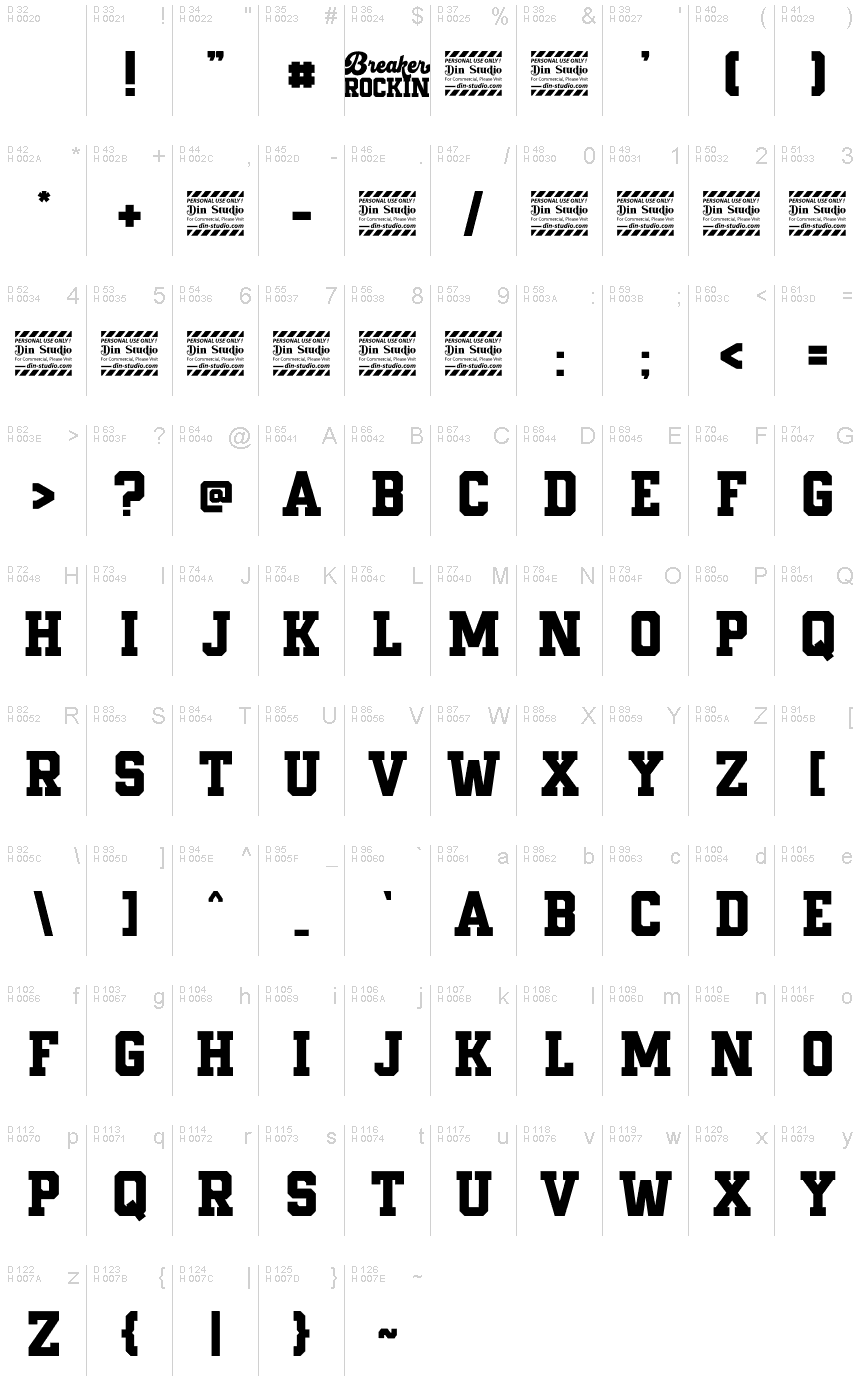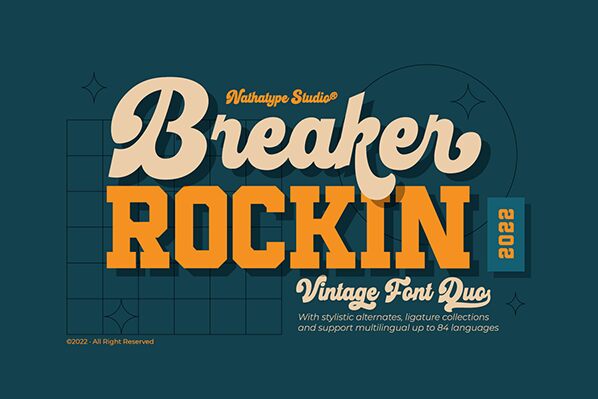
Breaker Rockin Display Personal
Breaker Rockin Display, designed by Din Studio, is an old school display font that exudes boldness and attitude. With its semi-condensed width and slab serif style, this font is perfect for projects that require a strong and commanding presence.
It's the ideal choice for vintage-inspired designs, concert posters, album covers, and rebellious branding. The Breaker Rockin Display font demands attention with its rugged edges and muscular letterforms, making it a powerful tool to convey a sense of nostalgia and raw energy in any creative endeavor.